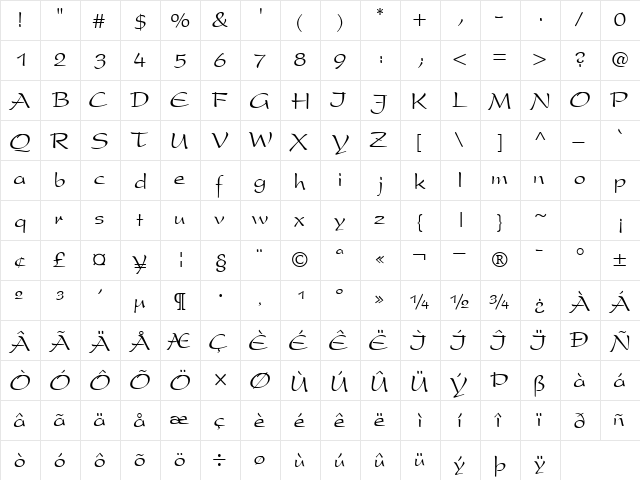
SnippetScriptSSK Regular
Design Context for SnippetScriptSSK Typeface
SnippetScriptSSK brings a calligraphic fluidity to the page — its connecting strokes and expressive curves give it an unmistakably human quality.
Font Pairing: Combine SnippetScriptSSK with a simple geometric sans for maximum contrast — the tension between flowing curves and clean structure is a classic typographic pairing.
Pro Tip: Pair SnippetScriptSSK with a clean sans-serif for supporting text. The contrast between fluid script and geometric structure creates an elegant typographic hierarchy.